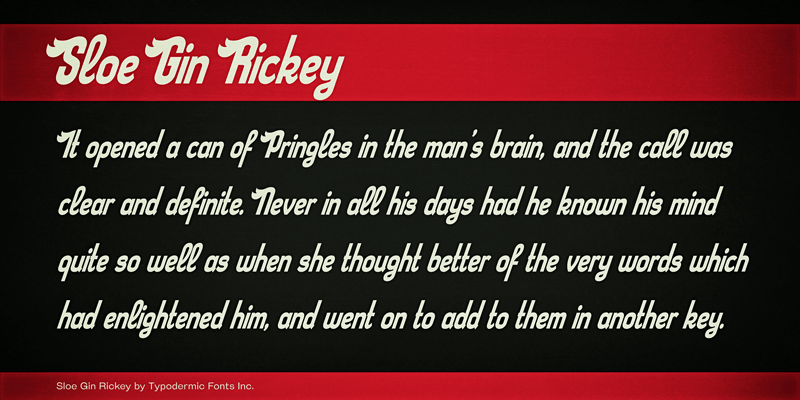
Sloe Gin Rickey is an aliform, industrial script. It was inspired by mid 20th Century automotive logo designs which used wing shapes to denote speed. You can see some of these ideas in the old logos for Raybestos, Harley Davidson and Bendix. This font includes a license that allows free commercial use: sometimes referred to as a desktop license. This allows you to install the font on a computer and use it to create posters, web graphics, game graphics, t-shirts, videos, signs, logos and more. Read the license agreement for details. If you'd like to embed this font in an app, ebook, on the web or anything that's not covered by the desktop license agreement, visit the link below. You'll find distributors who offer different types of licenses or you can contact me for help. http://typodermicfonts.com/sloe-gin-rickey/ |